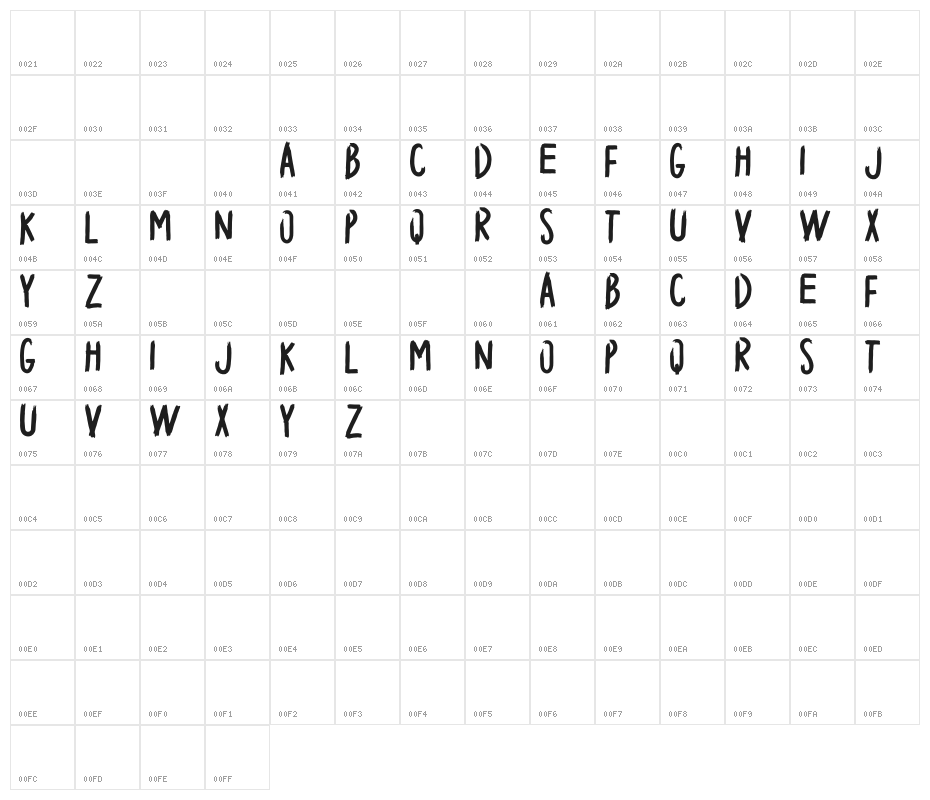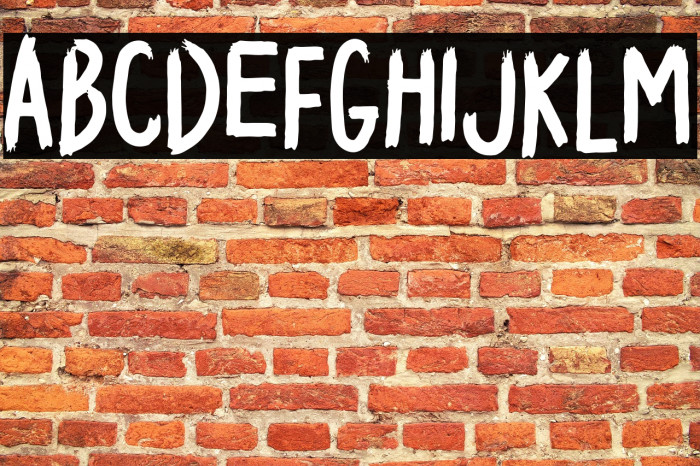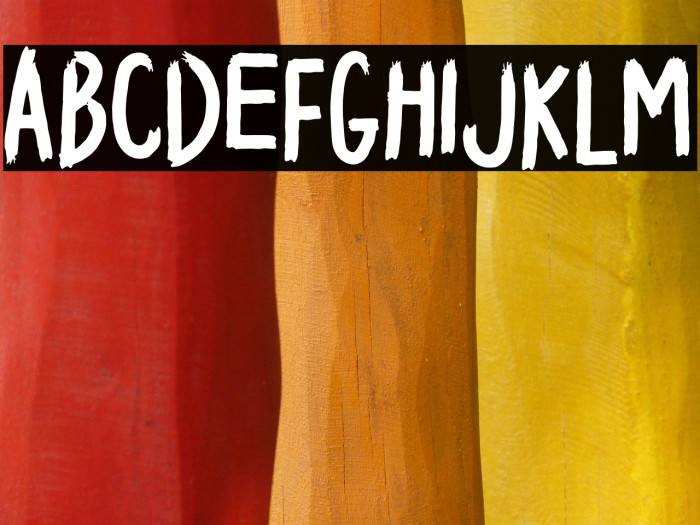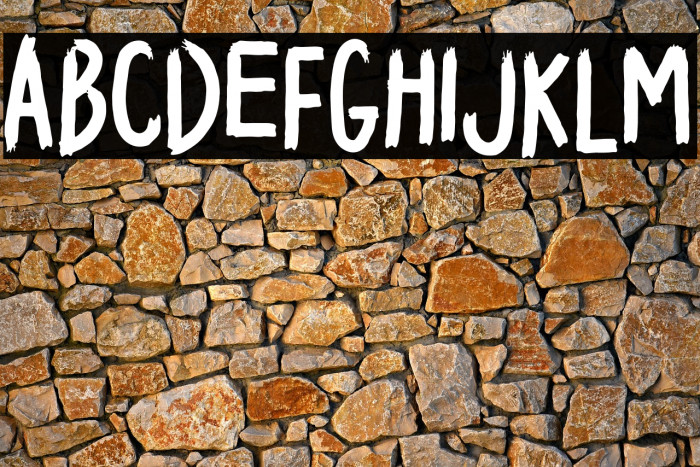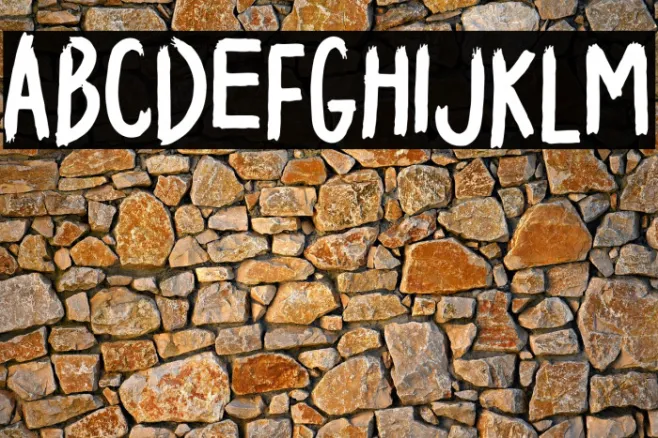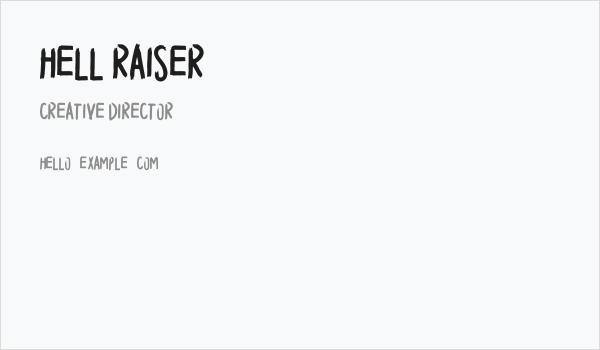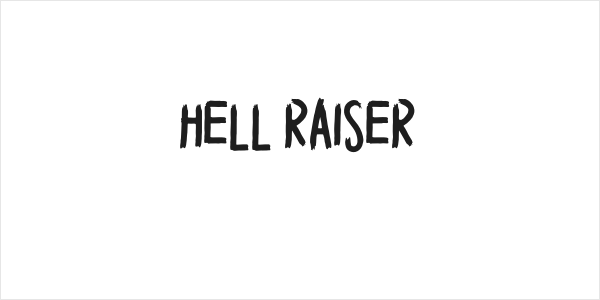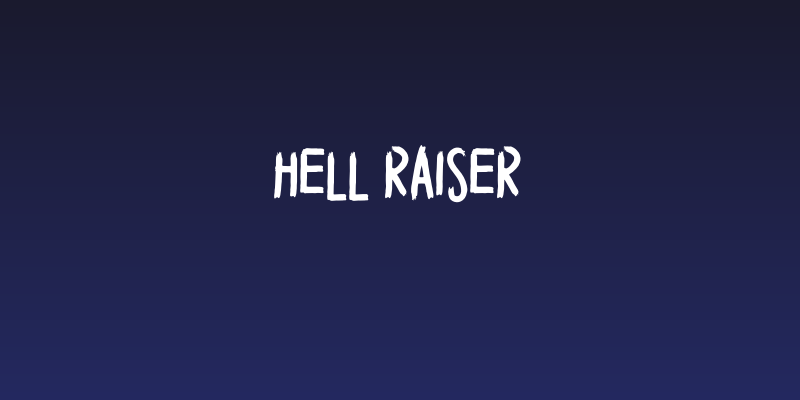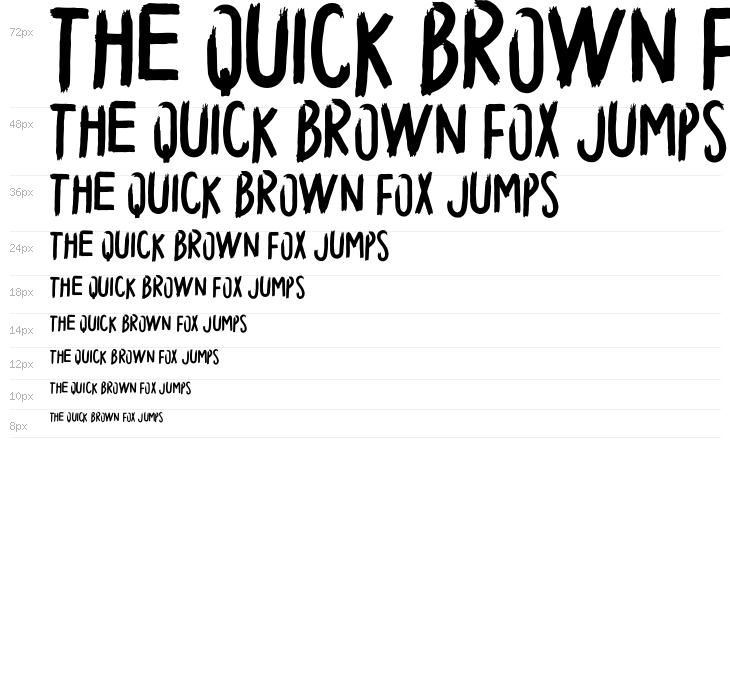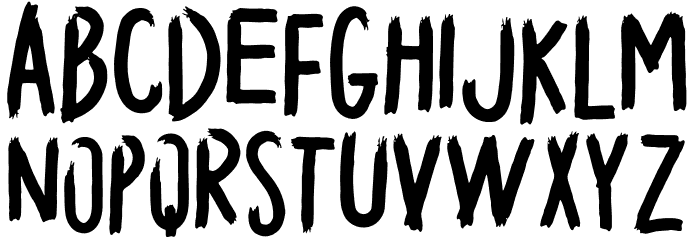
HELL RAISER Font
HELL RAISER Description
This font features a bold and expressive style, characterized by its brush-like strokes and uneven edges, giving it a hand-painted appearance. The letters are uppercase, with a slightly irregular baseline that adds to its dynamic and energetic feel. The strokes are thick and vary in width, creating a sense of movement and spontaneity. This font is ideal for projects that require a bold statement or an artistic touch, as it captures attention with its raw and unrefined aesthetic.